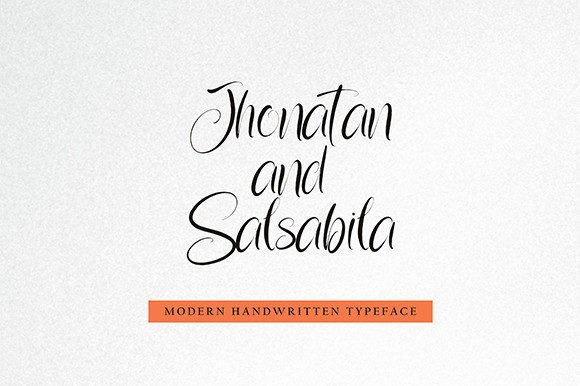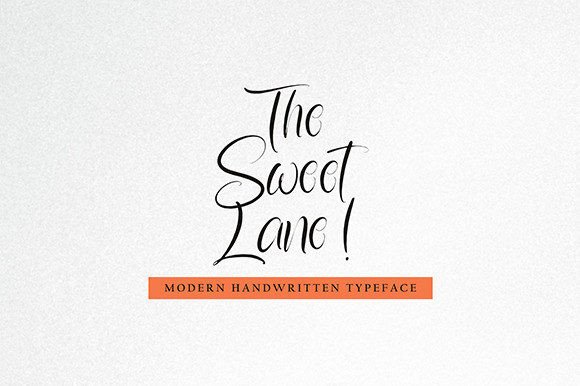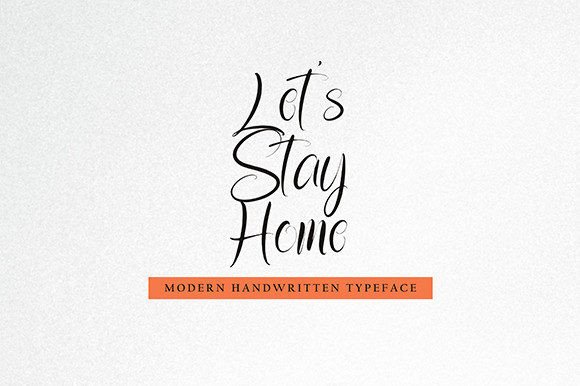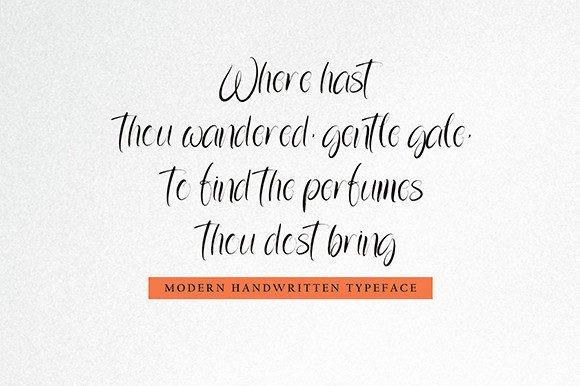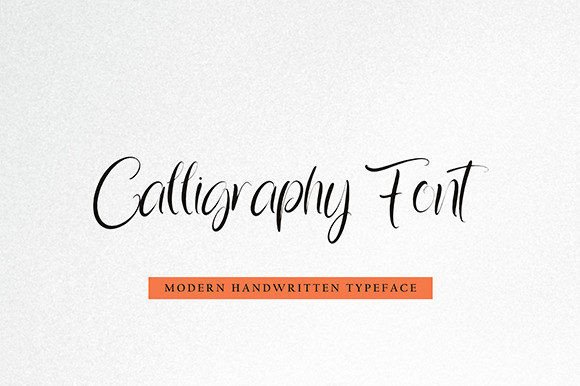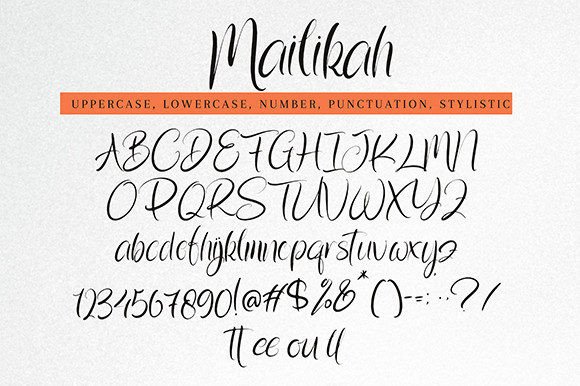
Introduction to Mailikah Font
Mailikah is a stylish and elegant handwritten font.
| 👤 Author | Pineungtype & Missinklab |
It looks stunning on wedding invitations, thank you cards, quotes, greeting cards, logos, business cards, and any other design that needs a handwritten touch .